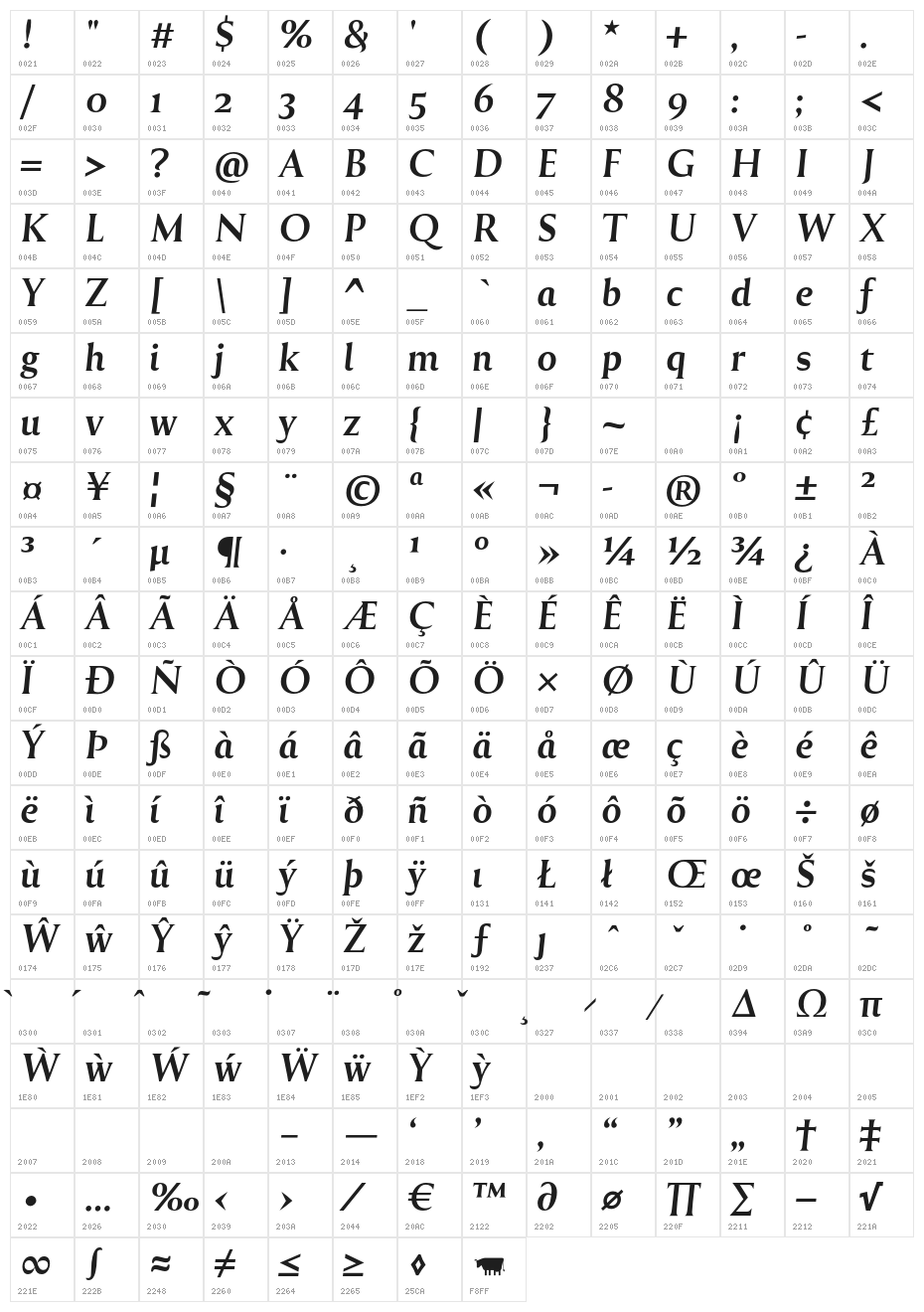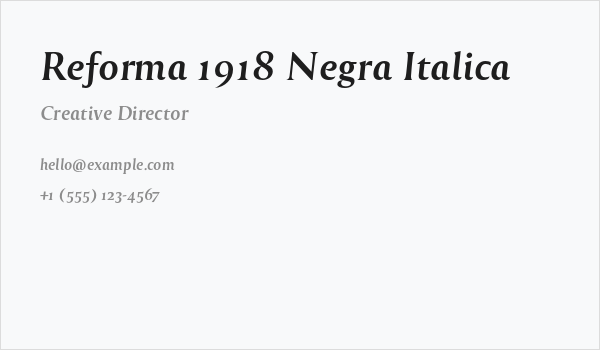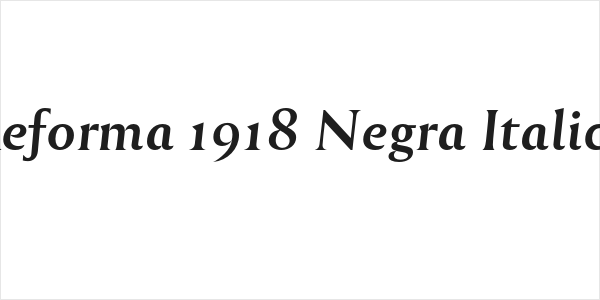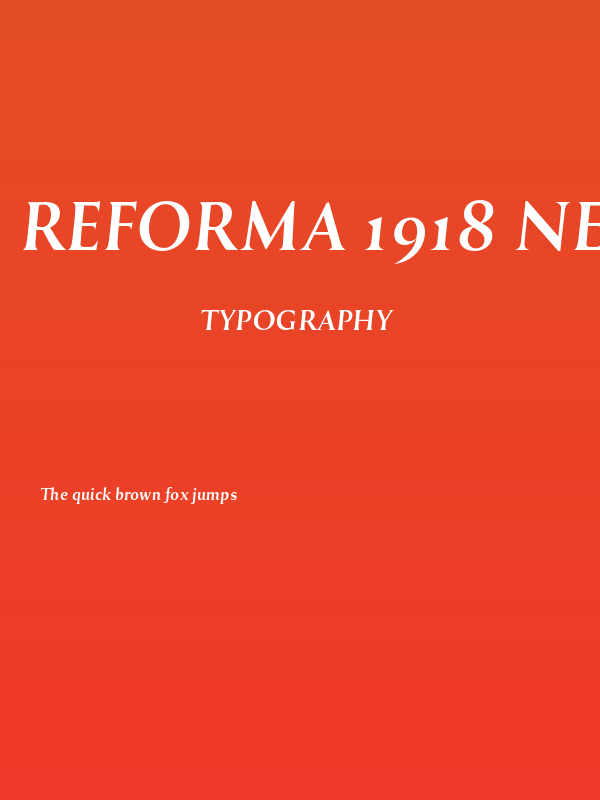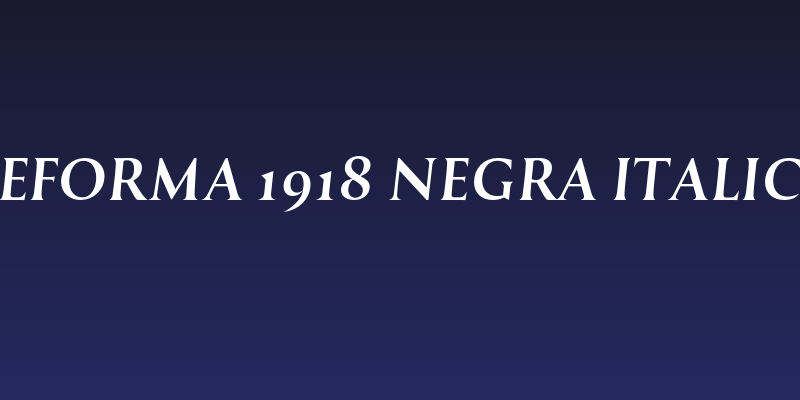
Reforma 1918 Negra Italica Font
Reforma 1918 Negra Italica Description
This font exhibits a strong and elegant serif style with a pronounced italic slant, giving it a dynamic and sophisticated appearance. The characters are well-defined with sharp serifs and a consistent stroke width that adds to its bold presence. The uppercase letters are stately and commanding, while the lowercase letters maintain readability with a touch of flair. Numbers and special characters are designed to complement the overall aesthetic, ensuring versatility across various applications. The font's design is both classic and modern, making it suitable for a wide range of uses.
| Use Case | Headlines, Logos, Editorial Design |
| Proposed Projects | Ideal for editorial design, book covers, branding, and high-end product packaging. |